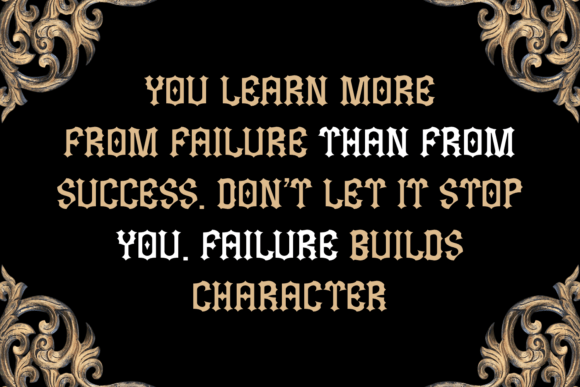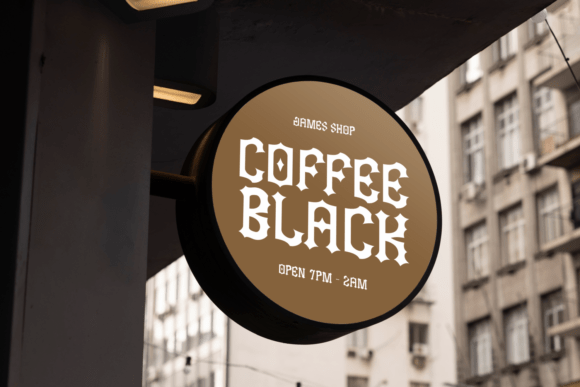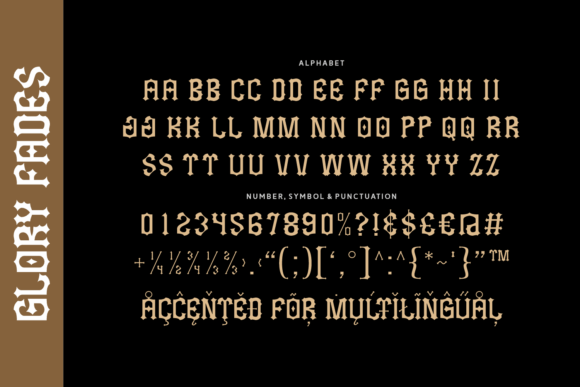
Unleash the Power of Gothic Typography with Glory Fades Font
In the realm of typography, few fonts evoke the same level of drama and mystique as Glory Fades. This modern blackletter font is a masterpiece of design, boasting a unique blend of bold statement typography and authentic blackletter texture. Whether you’re a designer, craftsperson, or simply a typography enthusiast, Glory Fades is sure to captivate your imagination and inspire your creativity.
The Distinctive Features of Glory Fades
So, what sets Glory Fades apart from other fonts? The answer lies in its distinctive design elements, which include:
• Diamond-shaped counters: These unique counters add a touch of elegance and sophistication to the font, while also evoking a sense of power and strength.
• Pointed serifs: The pointed serifs of Glory Fades give the font a sense of drama and flair, making it perfect for creating eye-catching headlines and titles.
• Authentic blackletter texture: Despite its modern design, Glory Fades retains the authentic texture of traditional blackletter fonts, adding a sense of history and heritage to any design.
Perfect for Impactful Branding and Artistic Visuals
Glory Fades is more than just a font – it’s a design statement. Its bold, dramatic letterforms make it perfect for creating impactful branding and artistic visuals that demand attention. Whether you’re designing a logo for a metal band, a title for a fantasy novel, or a label for a vintage tattoo artist, Glory Fades is the perfect choice.
Use Cases for Glory Fades
The versatility of Glory Fades means it can be used in a wide range of design projects, including:
• Gothic apparel: Create eye-catching t-shirt designs, hoodies, and other apparel that showcases your brand’s unique style.
• Fantasy novels: Add a touch of magic and mystery to your book covers and interior designs with Glory Fades.
• Metal band logos: Create bold, attention-grabbing logos that reflect the energy and intensity of your music.
• Vintage tattoo art: Use Glory Fades to create stunning tattoo designs that evoke the classic style of traditional tattoo art.
Works Well for Both Print and Digital Design Projects
One of the key benefits of Glory Fades is its versatility across different design mediums. Whether you’re working on a print project, such as a brochure or poster, or a digital project, like a website or social media graphic, Glory Fades performs beautifully.
Why Designers and Crafters Love Glory Fades
So, why do designers and crafters love Glory Fades? Here are just a few reasons:
• Ease of use: Glory Fades is incredibly easy to use, even for those with limited design experience.
• High-quality design: The font is meticulously crafted to ensure that every letterform is of the highest quality.
• Flexibility: Glory Fades can be used in a wide range of design projects, from branding and advertising to packaging and more.
In conclusion, Glory Fades is a truly exceptional font that offers a unique blend of style, versatility, and impact. Whether you’re a designer, craftsperson, or simply a typography enthusiast, Glory Fades is sure to inspire your creativity and help you create stunning designs that demand attention. So why wait? Download Glory Fades today and unleash the power of gothic typography in your designs!